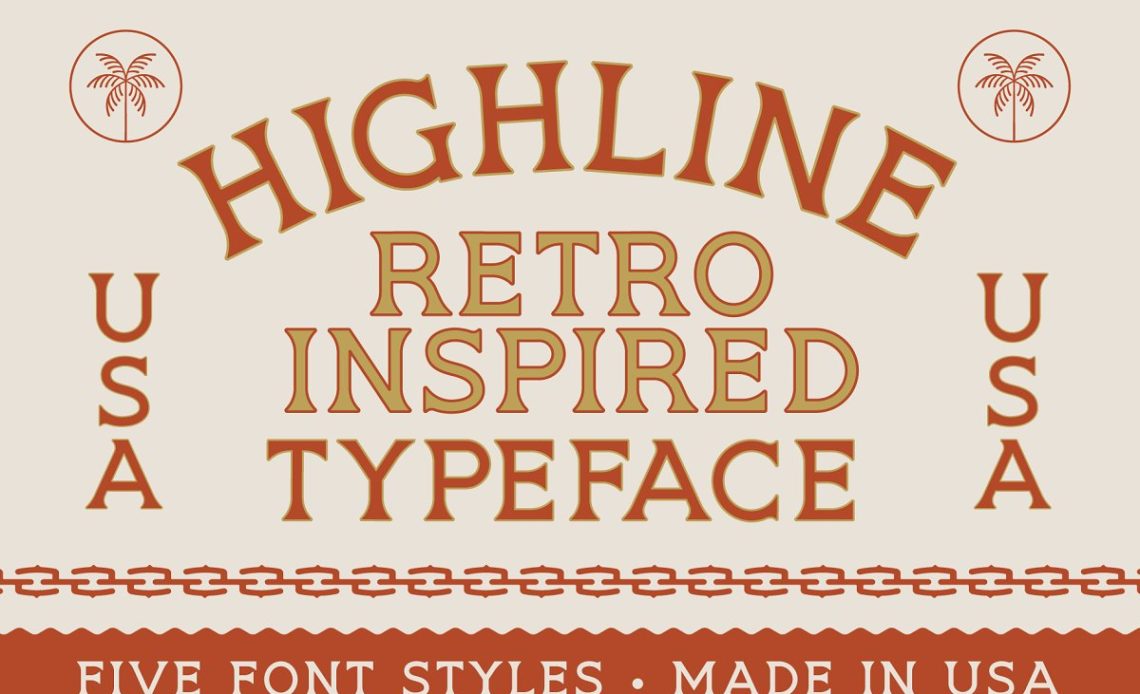
Looking for the perfect font to add some vintage charm to your modern app? Look no further than HIGHLINE Font - the best font for modern apps!
Created by font designer Adam Nienow and updated in March 2022, HIGHLINE is a stunning serif font family that features five unique styles. But what really sets HIGHLINE apart is its high crossbar features and curved serifs, which give it a distinctive look that's perfect for monogram logos.
With its monoline font and retro-inspired design, HIGHLINE is an excellent choice for designers and businesses looking to add a touch of vintage flair to their branding. And thanks to its versatility, it's also well-suited for modern designs that need a hint of nostalgia.